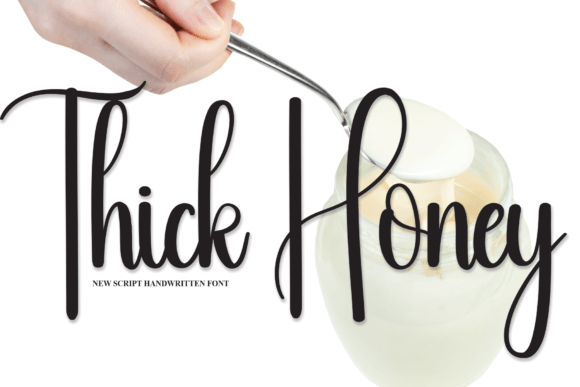
Looking for the perfect font to convey your sympathy? Look no further than Thick Honey Font, the best font for sympathy cards on the market! This sweet and friendly handwritten font was created by the talented William Jhordy and is sure to add a lovely touch to any design.
Thick Honey Font is the perfect choice for those looking to add a personal and heartfelt touch to their projects. With its fun and relaxed style, this font is ideal for creating wedding invitations, cards, or any other design that requires a touch of warmth and personality.
Whether you're creating a heartfelt sympathy card or simply looking to add a personal touch to your designs, Thick Honey Font is sure to impress. Its delicate script style is both elegant and inviting, making it the perfect choice for conveying feelings of love and warmth.